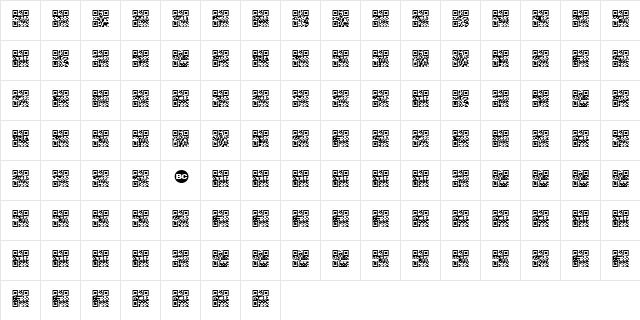
Scan me QR
Design Context for Scan me Typeface
Scan me is a composed and adaptable typeface that performs quietly and consistently across a wide range of design contexts.